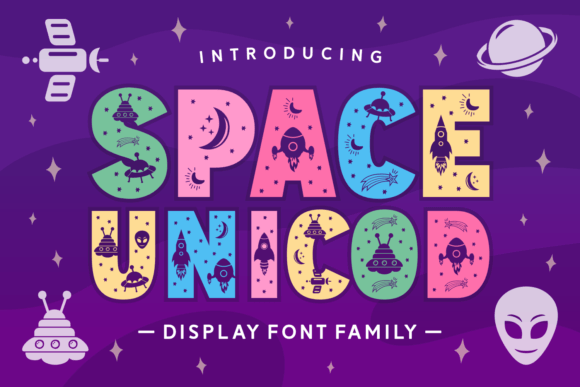
In a galaxy of fonts, meet Space Unicod, the celestial dance of characters that will illuminate your designs with cosmic charm. This decorative typeface is not just a font; it's a portal to a universe of imagination where letters are sprinkled with stars, planets, and constellations.
Imagine your words taking flight, adorned with miniature astronauts, rockets, and celestial wonders. Space Unicod is not merely a typeface; it's an invitation to embark on an intergalactic adventure with every keystroke.
Unleash your creativity and blast off into a realm where typography meets extraterrestrial beauty. Whether it's invitations, posters, or digital designs, Space Unicod will transform your words into cosmic masterpieces.
With Space Unicod, you're not just typing; you're painting a celestial tapestry of words, leaving a trail of stardust in your wake. Its whimsical and playful appearance will ignite your imagination, inviting you to explore the boundless reaches of your creativity.
And the best part? Space Unicod is PUA encoded, so you can effortlessly access all its glyphs and swashes, making it a breeze to incorporate cosmic elements into your designs. It's like having a universe of typographic possibilities at your fingertips.
So, why settle for ordinary fonts when you can have a font that takes you on an interstellar journey? Embrace the magic of Space Unicod and let your words dance among the stars. Get ready to leave your audience starstruck with every design you create.
Make Space Unicod your font of choice and prepare to witness the birth of stellar designs that will leave an indelible mark on your creative endeavors. Engage your audience in a symphony of words and visuals, where each letter becomes a shining constellation.
With Space Unicod, your designs will transcend earthly boundaries and soar among the stars, inspiring awe and wonder in the hearts of all who behold them. Embrace the cosmic allure of this font and let your creativity reach new heights, one letter at a time.